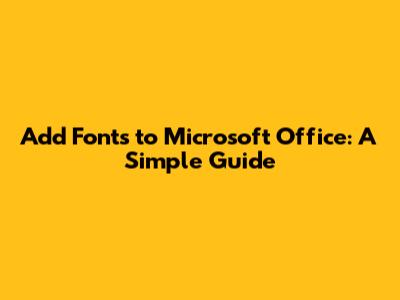
- Enhance Visual Appeal: A unique font can make your documents stand out and grab the reader's attention.
- Reinforce Branding: Using specific fonts consistently across your documents helps to build and maintain brand identity.
- Improve Readability: Certain fonts are designed for better readability, which can make your documents more accessible and enjoyable to read.
- Express Creativity: New fonts open up a world of creative possibilities, allowing you to express your personality and style in your work.
- Font Looks Different Than Expected:
- Check Font Variations: Some fonts come with different variations (e.g., bold, italic, light). Make sure you’re using the correct variation.
- Compatibility Issues: Occasionally, a font might not be fully compatible with Office. Try a different font or update your Office suite.
- Font Appears Garbled or Distorted:
- Corrupted Font File: The font file itself might be corrupted. Try downloading the font again from a reputable source.
- Graphics Driver Issues: In rare cases, outdated or corrupt graphics drivers can cause font display issues. Update your graphics drivers to the latest version.
- Consider Your Audience: Think about who will be reading your document. A formal font might be appropriate for a business report, while a more playful font could be suitable for a creative project.
- Prioritize Readability: Choose fonts that are easy to read, especially for body text. Avoid overly decorative or stylized fonts for large blocks of text.
- Use Font Combinations Wisely: Combining different fonts can create visual interest, but it’s important to do it carefully. A good rule of thumb is to use no more than two or three different fonts in a single document. Pair a serif font (like Times New Roman or Garamond) with a sans-serif font (like Arial or Helvetica) for a balanced look.